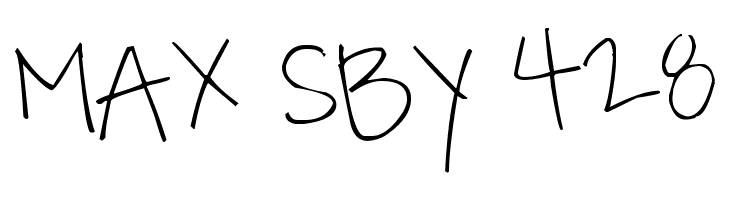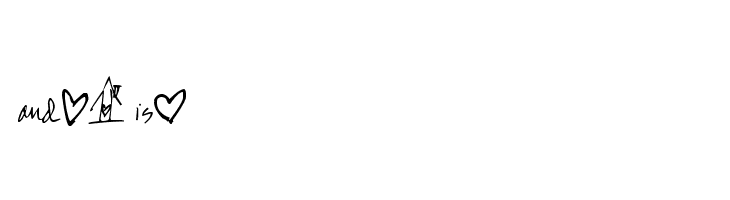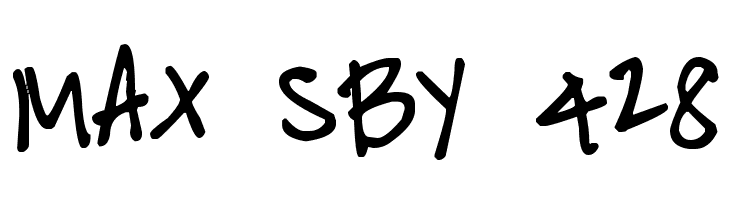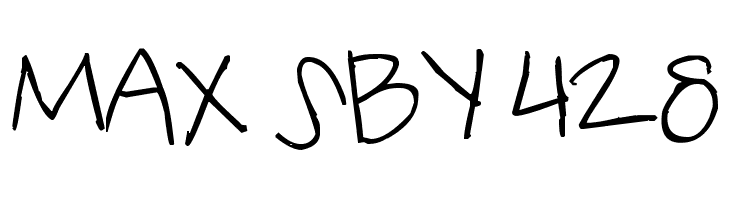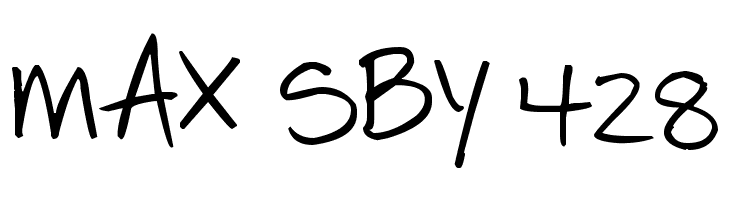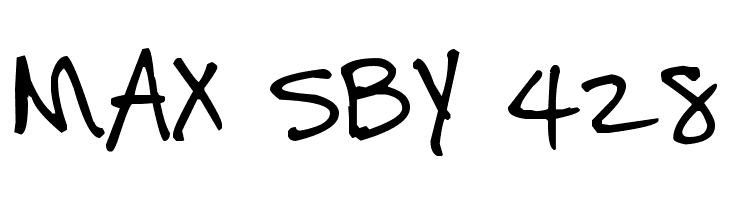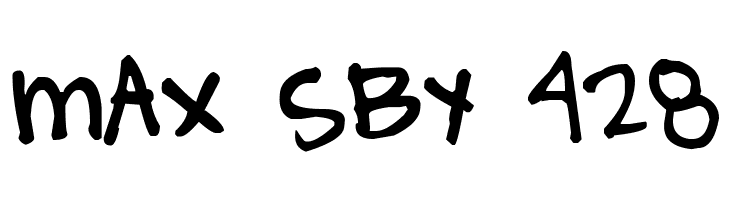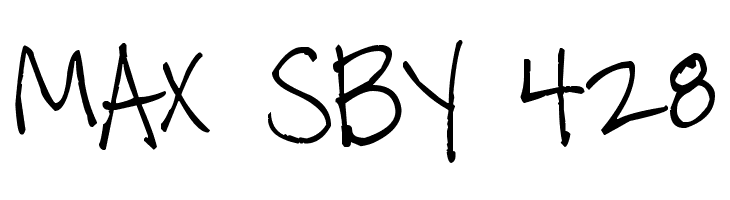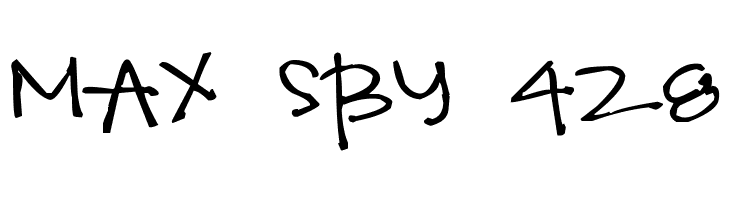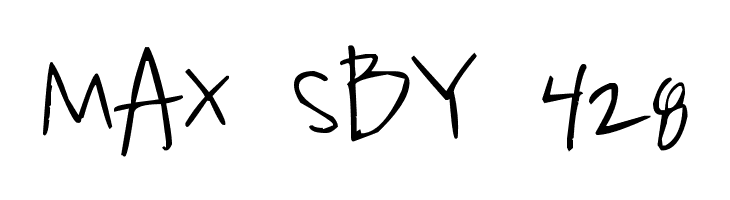
Pea Kate Font
A playful, informal handwritten font with smooth, fluid strokes.
Pea Katherine Font
A casual, handwritten font with a playful and dynamic style.
Pea Kathryn Font
A playful, handwritten font with bold, irregular strokes.
Pea Kathy Font
A playful, handwritten-style font with smooth, fluid strokes and a casual appearance.
Pea Katie Font
A playful, casual handwritten font with a natural flow and informal touch.
Pea Katie Jo Font
A playful, handwritten font with a casual and dynamic style.
Pea Katie Shea Font
A bold, playful handwritten font with rounded strokes and a casual vibe.
Pea KatieH Font
A playful, handwritten font with dynamic strokes and a casual style.
Pea Kawai Font
A playful, casual handwritten font with a personal touch.
Pea Kel's Belles Font
A playful, casual handwritten font with a lively and spontaneous appearance.
Pea Kelly Font
A casual, playful handwritten font with dynamic strokes.
Pea Kelly Jelly Font
A playful, bold handwritten font with a casual and energetic style.
Pea Kelly Thin Font
A playful, handwritten font with a casual and informal style.
Pea Kenny Font
A playful, casual handwritten font with dynamic strokes.
Pea Kensey Font
A playful, handwritten font with a casual and whimsical style.
Pea Kerstin Font
A playful, casual handwritten font with irregular strokes and a lively feel.
Pea kevinandamanda Funky Font
A playful, handwritten font with bold strokes and quirky character spacing.
Pea kevinandamanda Handwriting Font
A playful and casual handwritten font with irregular strokes and a lively appearance.
Pea Keylor Font
A casual, handwritten font with a playful and informal style.